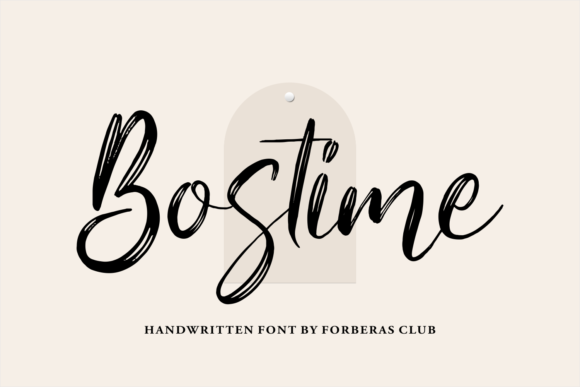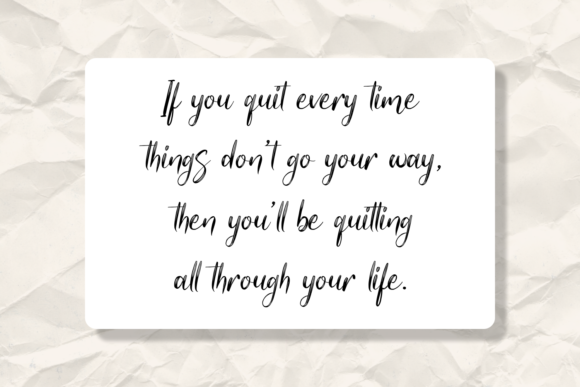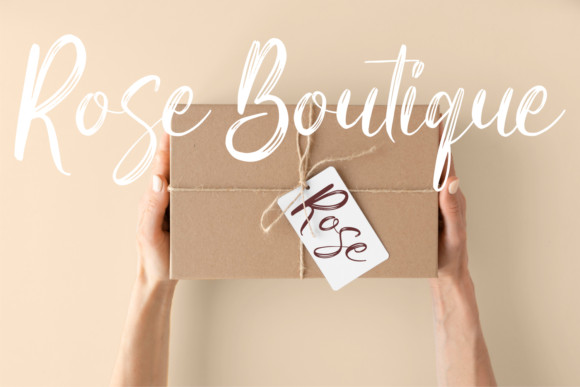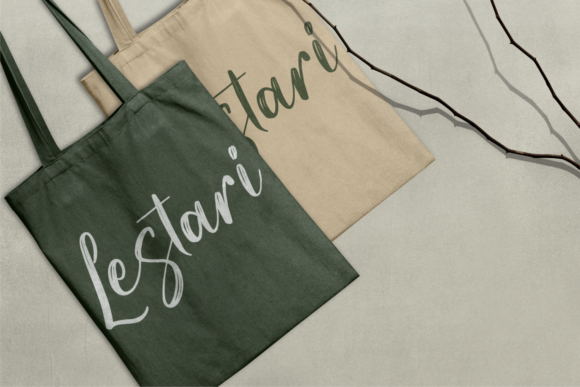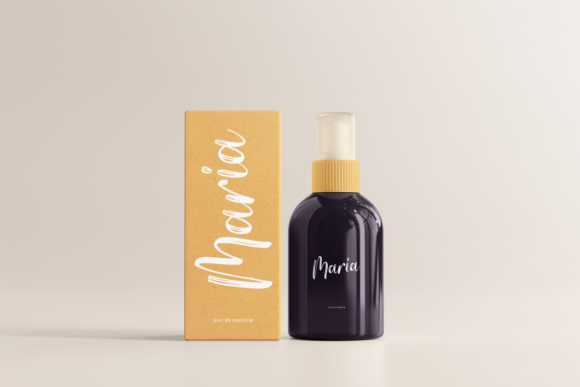
Bostime Font
About Bostime Font
Bostime is a flowing, delicate and brushed handwritten font. It is defined by smooth curves and is perfect for fashion branding or editorial designs. Add it confidently to your projects, and you will love the results.